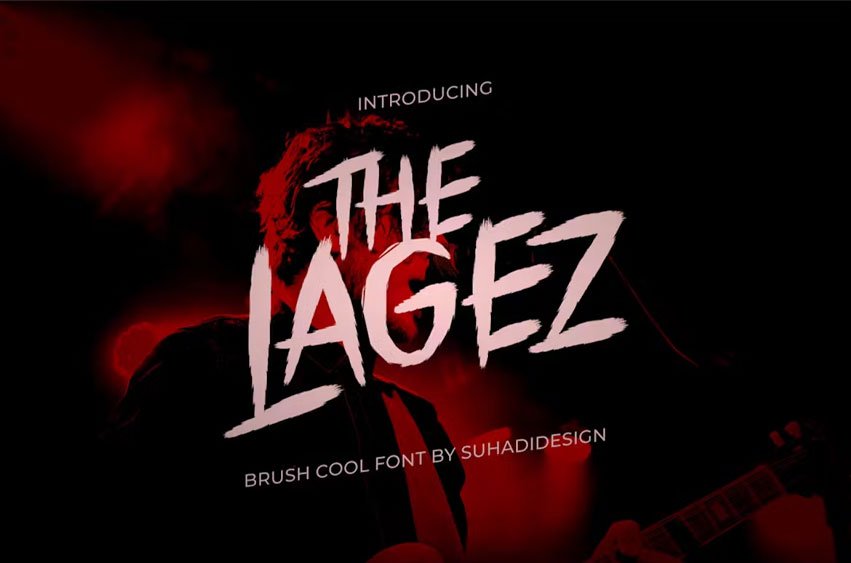
The Lagez Font brush cool music or horror Font.
According to market demand, the font is more likely to be a modern font, so I decided to make a modern horror brush font that is in your view. The The Lagez font is a challenging and very popular contest band/music or horror brush font, comes in a modern style to become a market favorite. We keep this font looking elegant, classy, easy to read, stylish, attractive and easy to use. The Lagez Font is a great choice for band contests, music, movies, challenging designs, and other projects. The Lagez font is here to take your design to the next level.
Font Features:
• All caps • Numeral and punctuation • Multilingual support